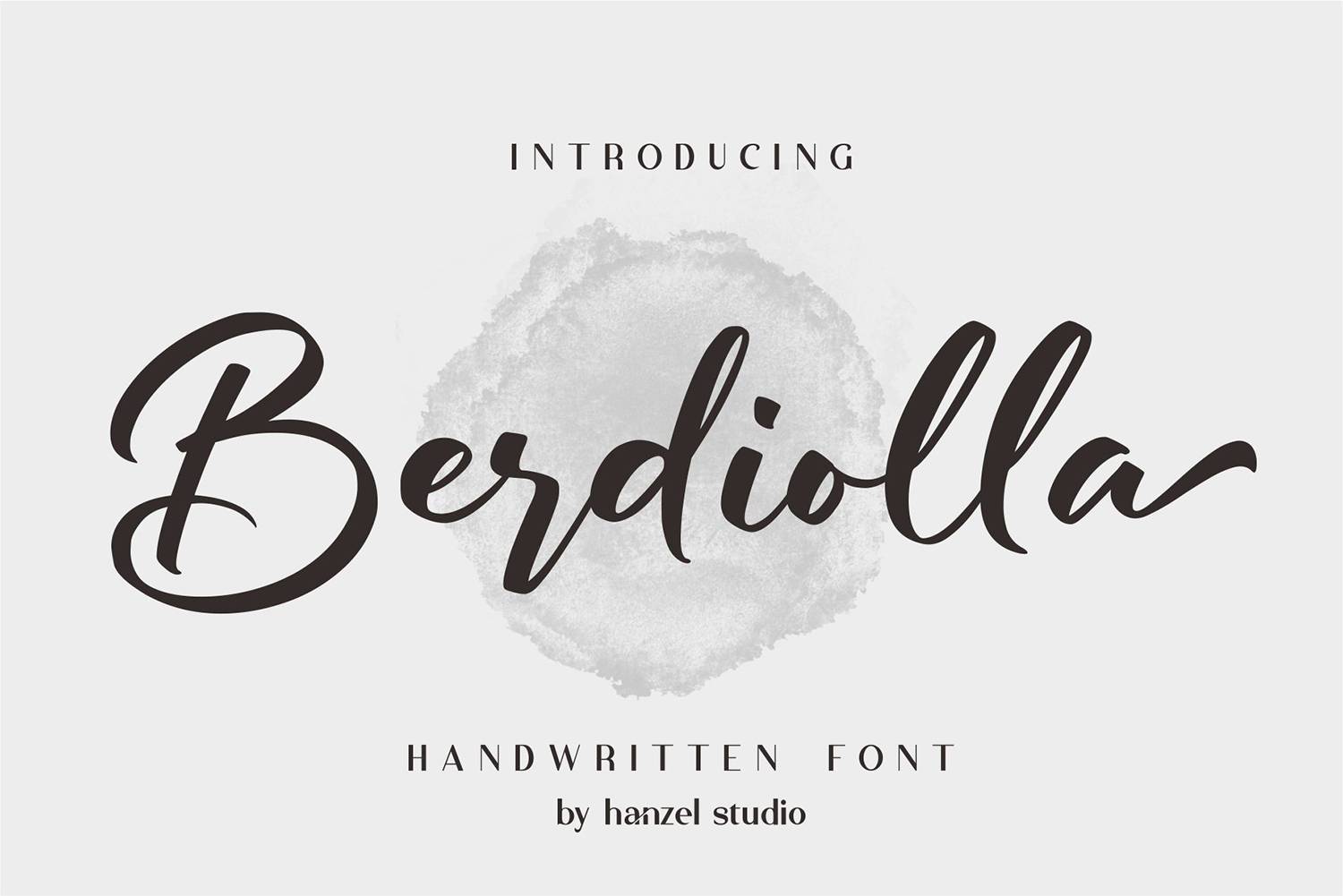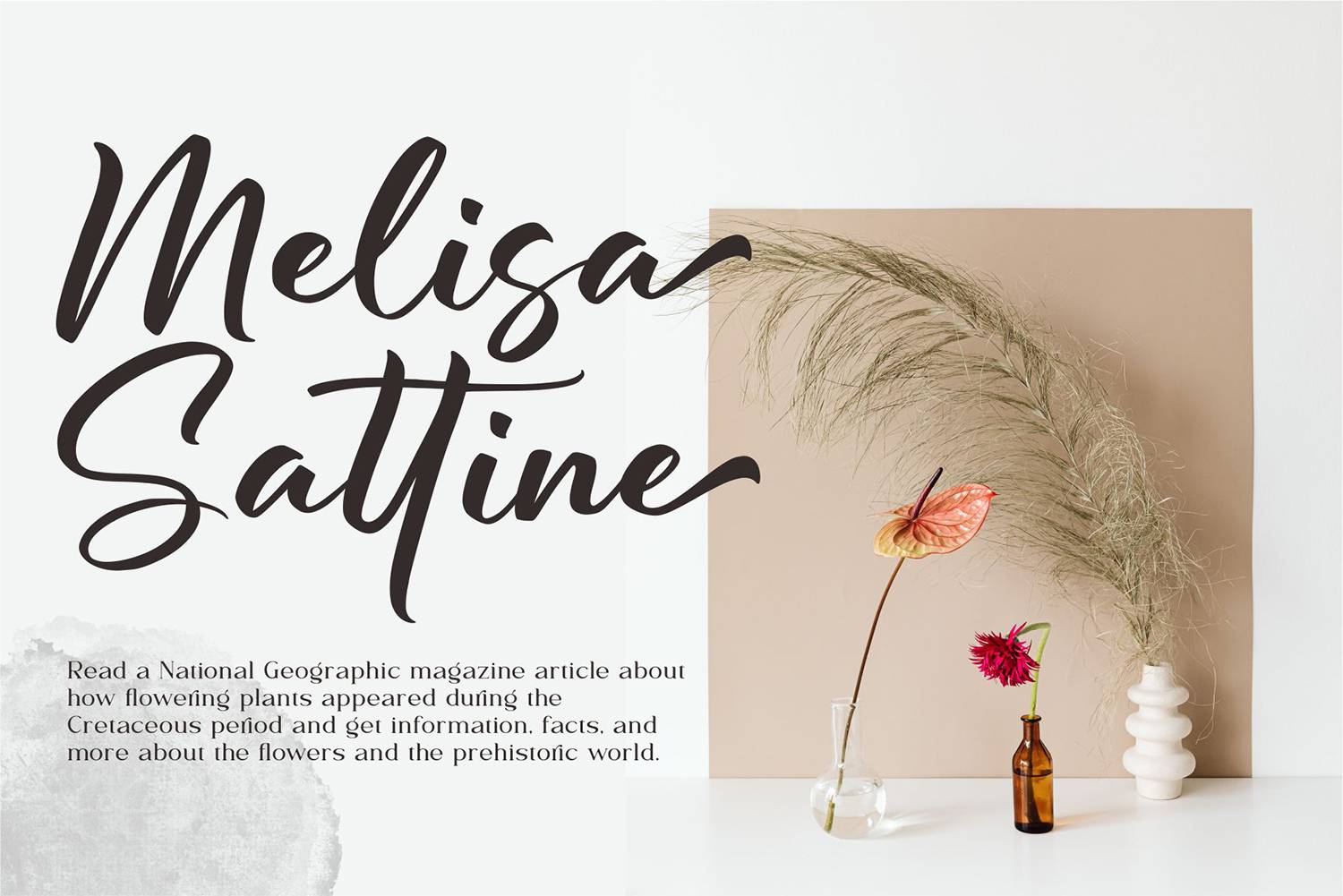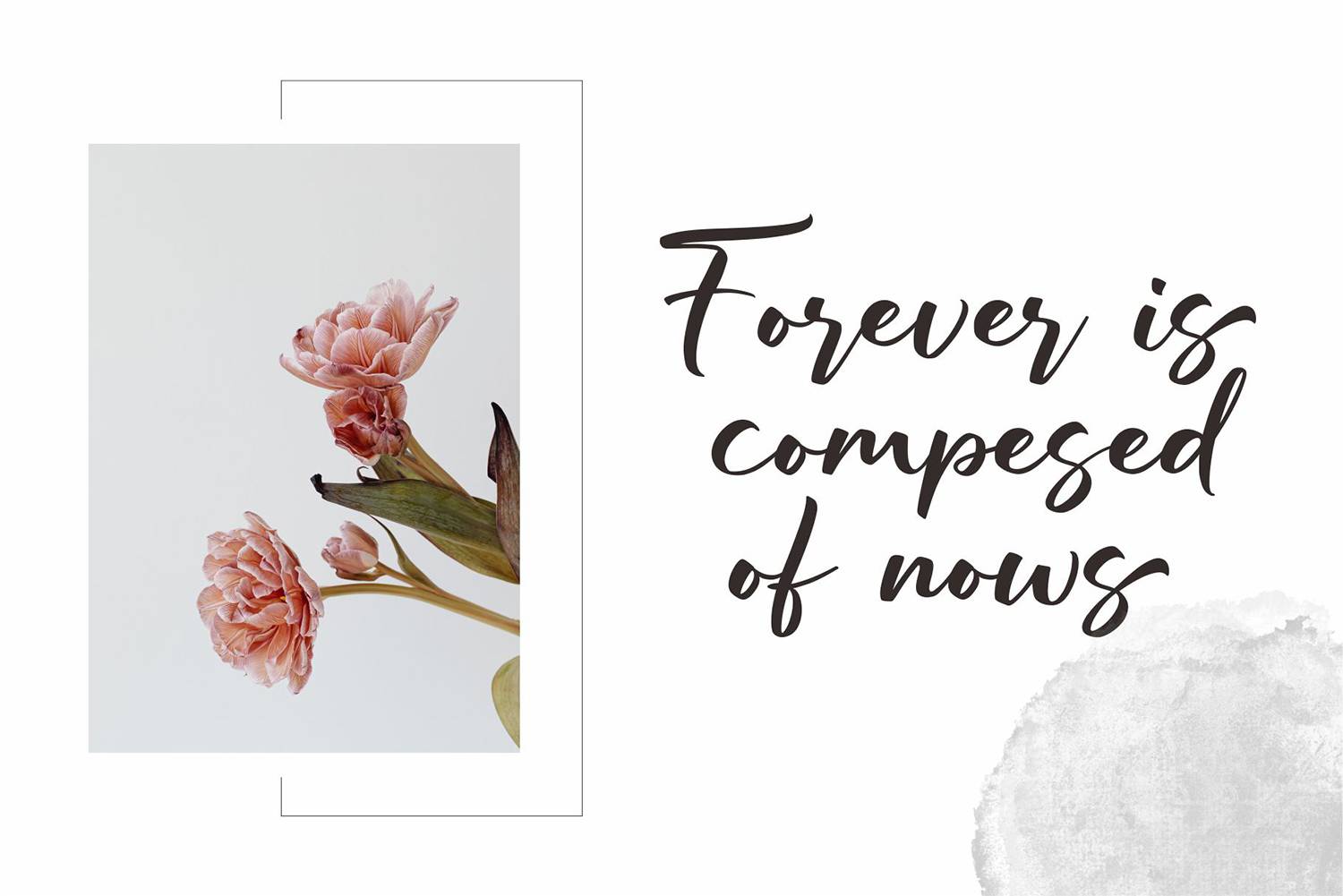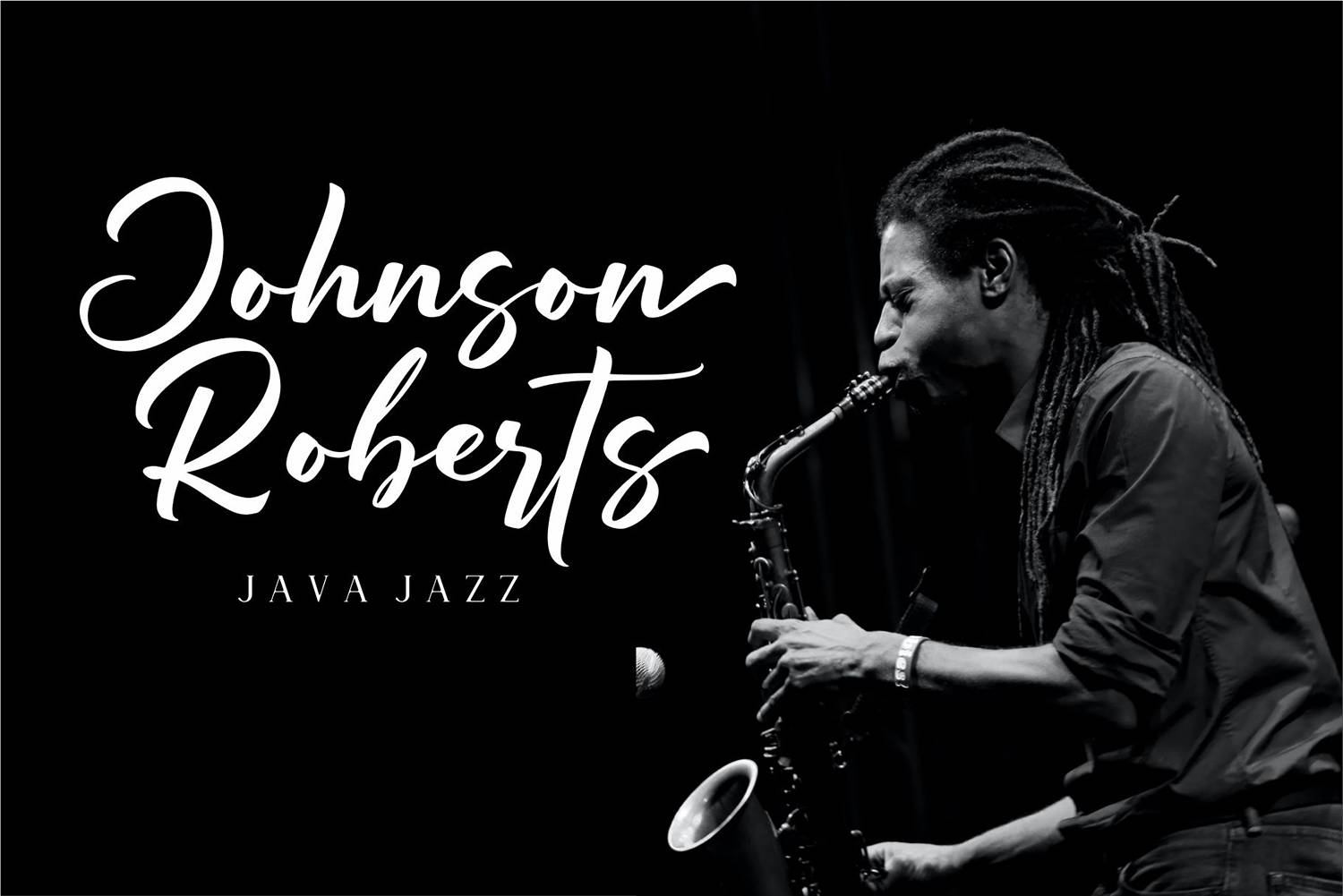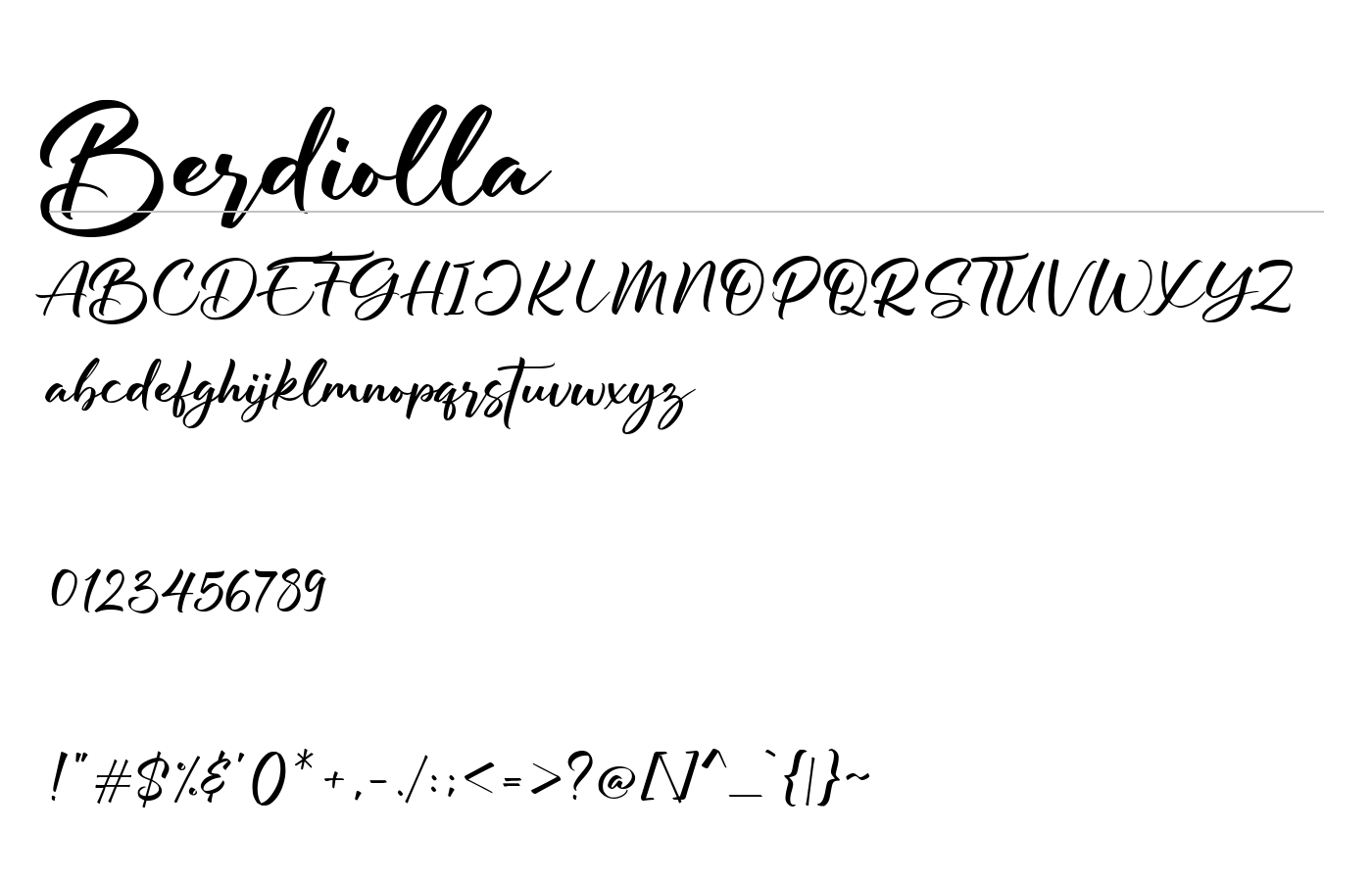
Berdiolla is a graceful script font with smooth, flowing strokes and a medium contrast that gives it a lively yet elegant personality. Its brush-like, slightly casual style with high x-height and delicate curves makes it perfect for brands and designs that want to evoke warmth, creativity, and sophistication. Ideal for invitations, branding, and stylish headlines, Berdiolla shines when used to add a personal, artistic touch.